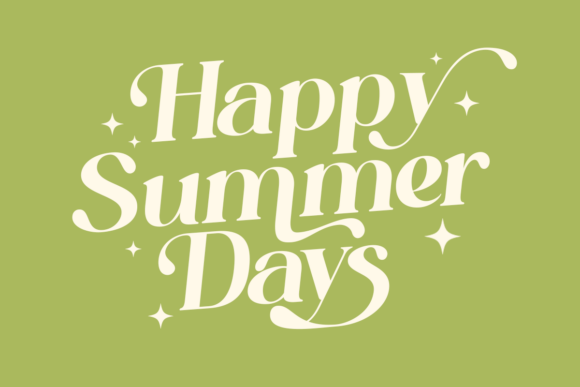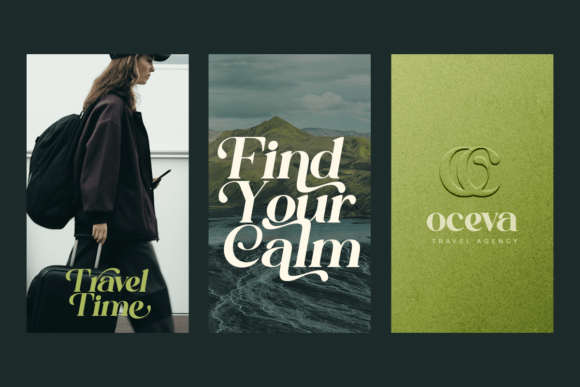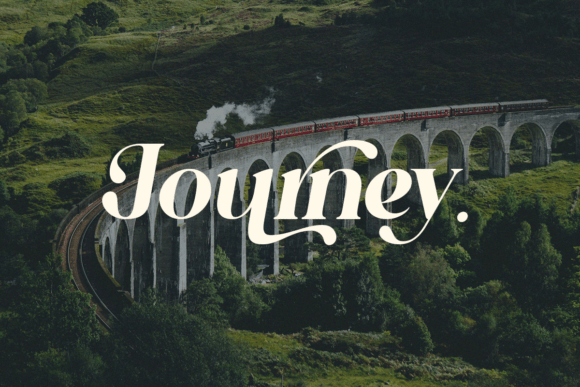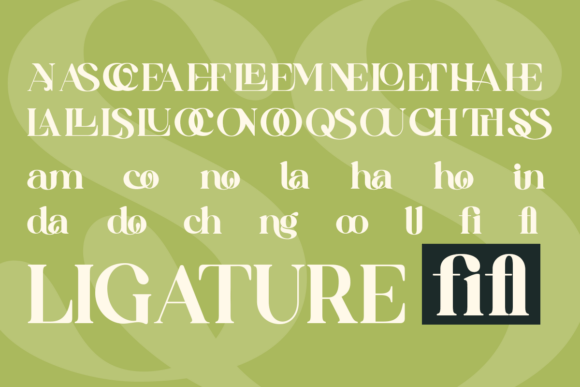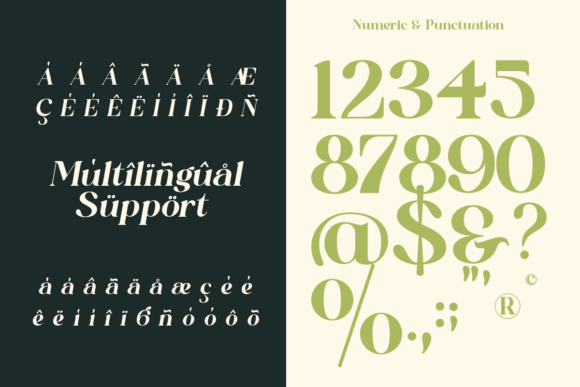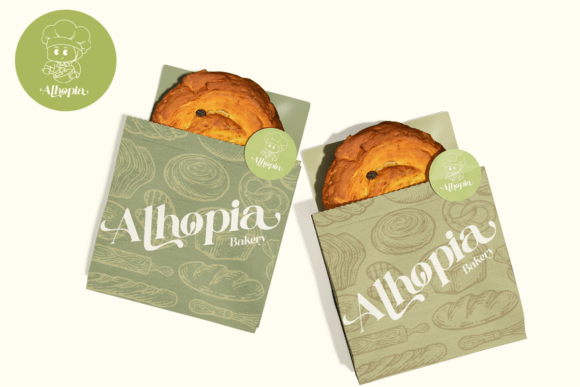
Introduction to Qoncila Font
The moment of truth for any designer – when the perfect font choice makes all the difference in bringing a creative project to life. It’s that instant where you know you’ve found the ideal partner to elevate your vision and leave a lasting impression. For designers seeking to infuse their work with high-quality, sophisticated flair, Qoncila Font is the ultimate design resource.
This modern luxury swash serif typeface is designed to deliver dramatic elegance with clean structure, making it perfect for logos, fashion campaigns, packaging, and boutique branding. With its bold contrast and expressive curves, Qoncila Font is the perfect choice for designers who demand a premium character and strong visual identity for their projects. Whether you’re working on a free download or a high-end design, this versatile font is sure to make your work stand out.
Key Features of Qoncila Font
- High-quality, professional font design perfect for creative projects and design resources.
- Unique characteristics include elegant, modern, and sophisticated style, making it suitable for a wide range of creative projects.
Honest Review: Qoncila Font
- High quality: The Qoncila Font is incredibly well-crafted, with smooth lines and a clear, readable font style.
- Design resource: Qoncila Font is a valuable addition to any design resource library, offering a unique and stylish touch to projects.
- Limited language support: The font may not support certain languages, which could be a limitation for international projects.
- No bold or italic variations: While the font looks great in its standard form, it would be even more versatile with bold or italic variations.